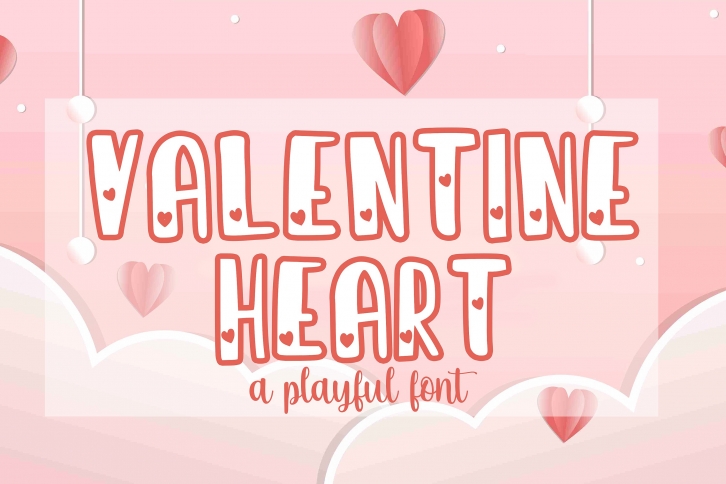
VALENTINE HEART is a beautiful font that was designed by inlovewithkats. It's a great choice for designers and creatives who need such a font. It was released on December 16, 2020 and the file size is 6.68 MB. VALENTINE HEART may give a more youthful, expressive and casual look to your project. It is a very beautiful, refined, elegant, and high-quality font.